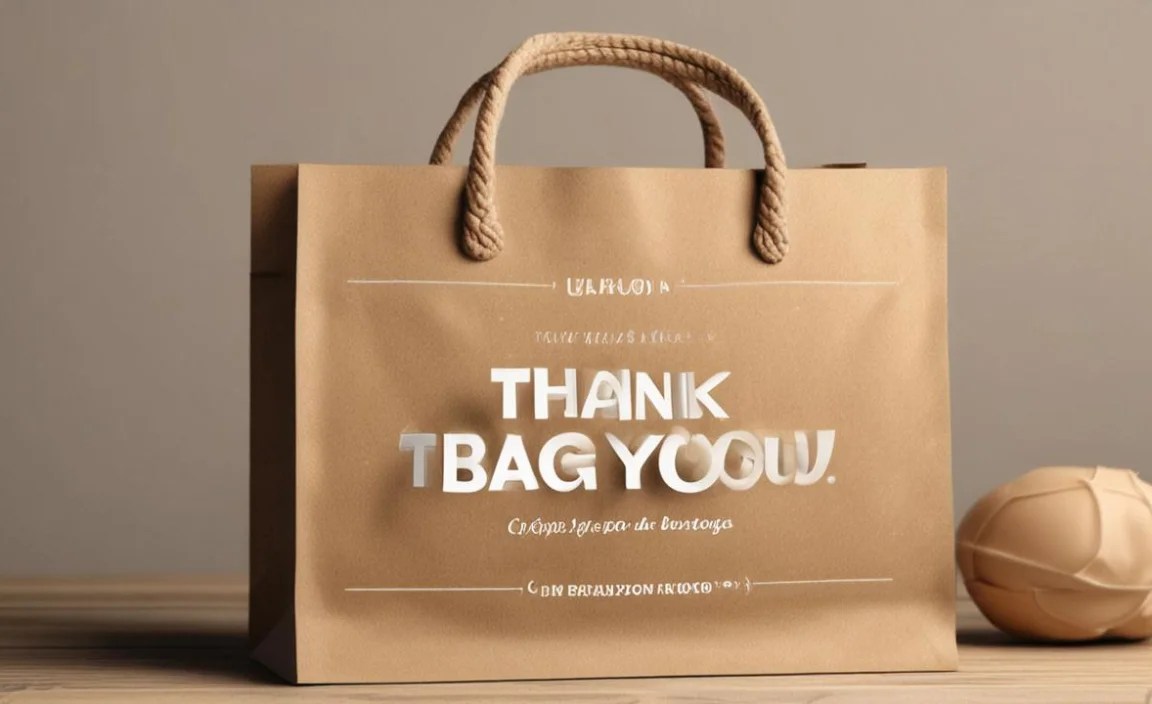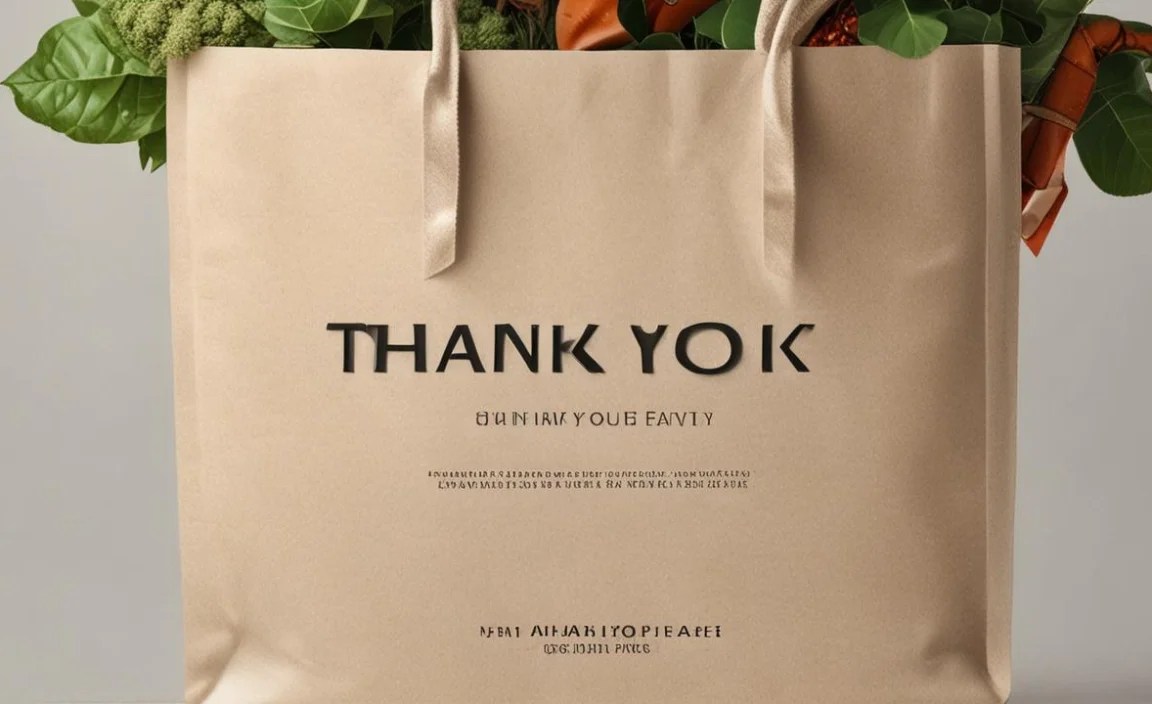
The Thank You Bag Font is a modern and stylish sans-serif typeface designed by Linotype. Known for its bold and clean aesthetic, it’s perfect for a variety of design projects, from packaging and logos to social media graphics and apparel.
Whether you’re working on a retail project, creating standout titles, or designing eye-catching signs, this font combines elegance with functionality. Available for free for personal use, the font offers a great balance of modernity and readability, making it an ideal choice for your next creative venture.
Thank You Bag Font Information
Name: Thank You Bag Font
Style: Sans Serif
Designer: Linotype
Type: Display Font
- Thank You Bag Regular
Where Thank You Bag Font Is In Use
- Design Projects: Perfect for modern, stylish designs with a bold and elegant look.
- Retail Packaging: Ideal for shopping bags, gift packaging, and more.
- Magazines & Magazines Titles: Create impactful titles for editorial content.
- T-shirts and Apparel: Excellent for bold statements and trendy designs.
- Logos: Fits well for brands looking for a clean yet powerful sans-serif look.
- Advertising: Works perfectly for billboards and print ads, ensuring readability and impact.
- Social Media Posts: Great for Pinterest and Twitter posts, adding personality to your visuals.
- Signage: Ideal for business signs, shopping signs, or store window displays.
Similar Font
- Thank You Bag Font + Handwriting Font: Combining the bold and modern Thank You Bag Font with a flowing calligraphy or handwriting style adds a personalized touch to your design projects.
- Thank You Bag Font + Helvetica: Pair with Helvetica for a clean and professional look that’s easy to read in any design.
4.What Styles Are Available In The Thank You Bag Font?
The font comes in a clean, bold sans-serif style, perfect for headlines, packaging, and modern designs.